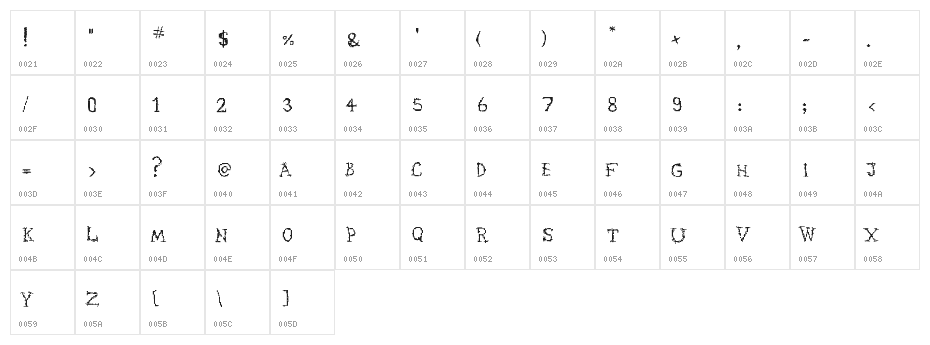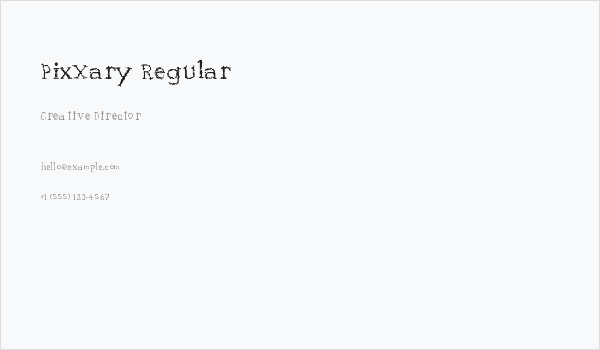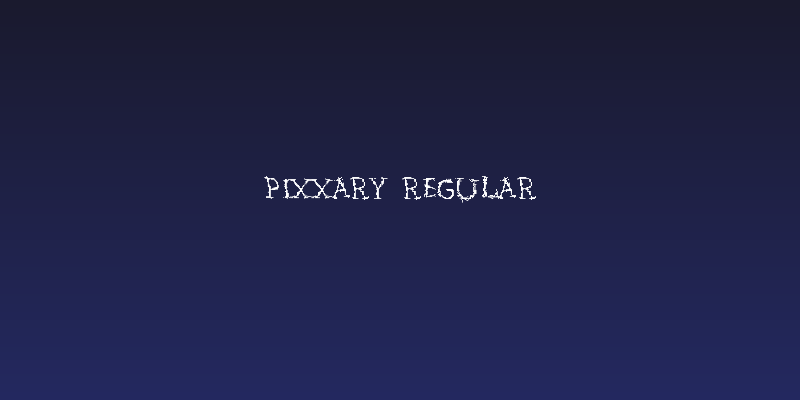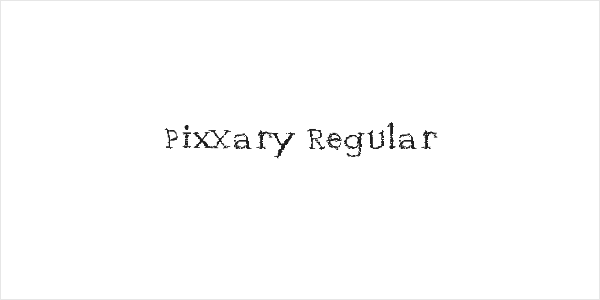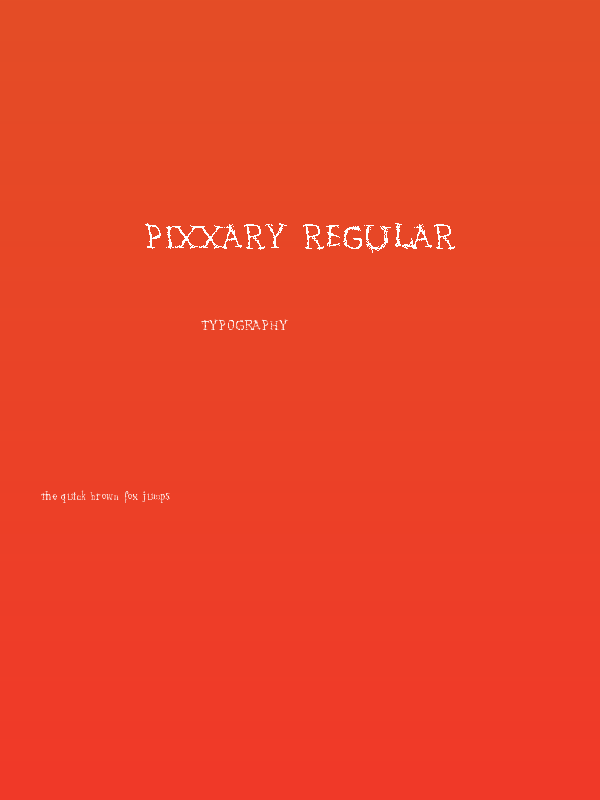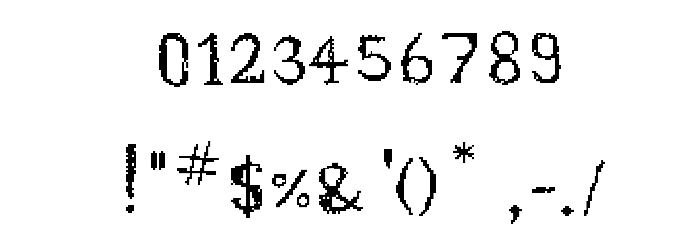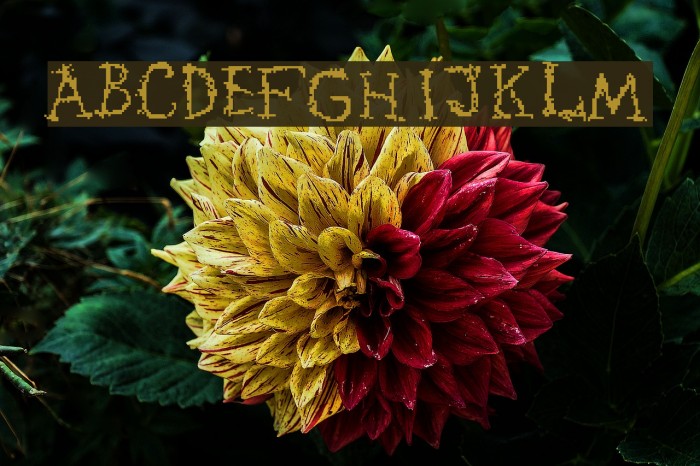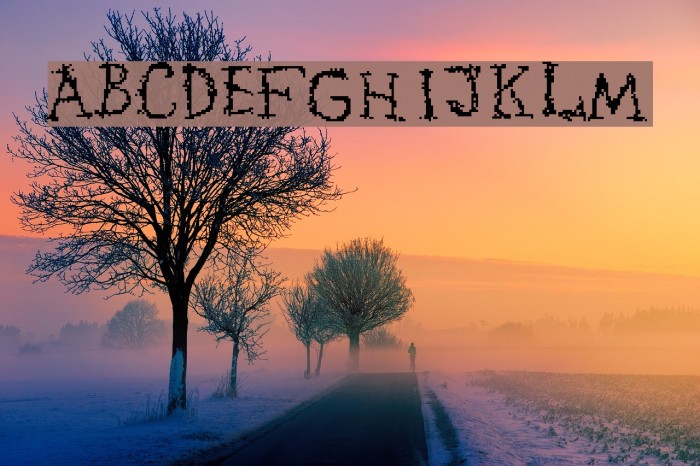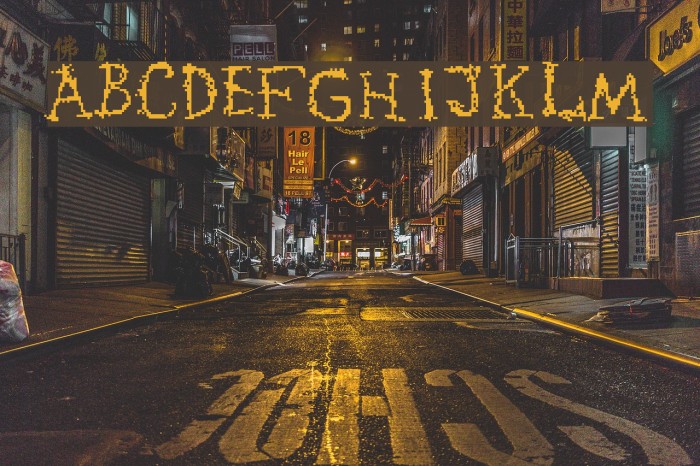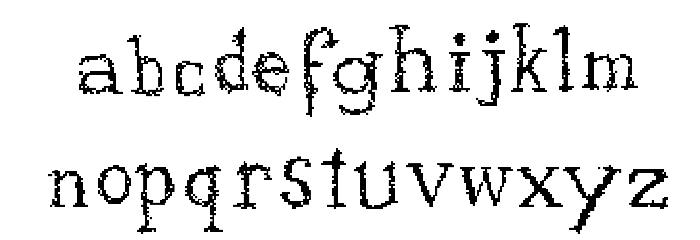
PixXary Regular Font
PixXary Regular Description
This font features a unique, distressed appearance with irregular edges and a hand-drawn quality. The characters are slightly uneven, giving it a rustic and organic feel. The uppercase and lowercase letters maintain a consistent style, with a playful yet sophisticated look. The numbers and special characters follow the same aesthetic, making it versatile for various design needs. Its distinctive style makes it stand out, perfect for projects that require a touch of creativity and individuality.